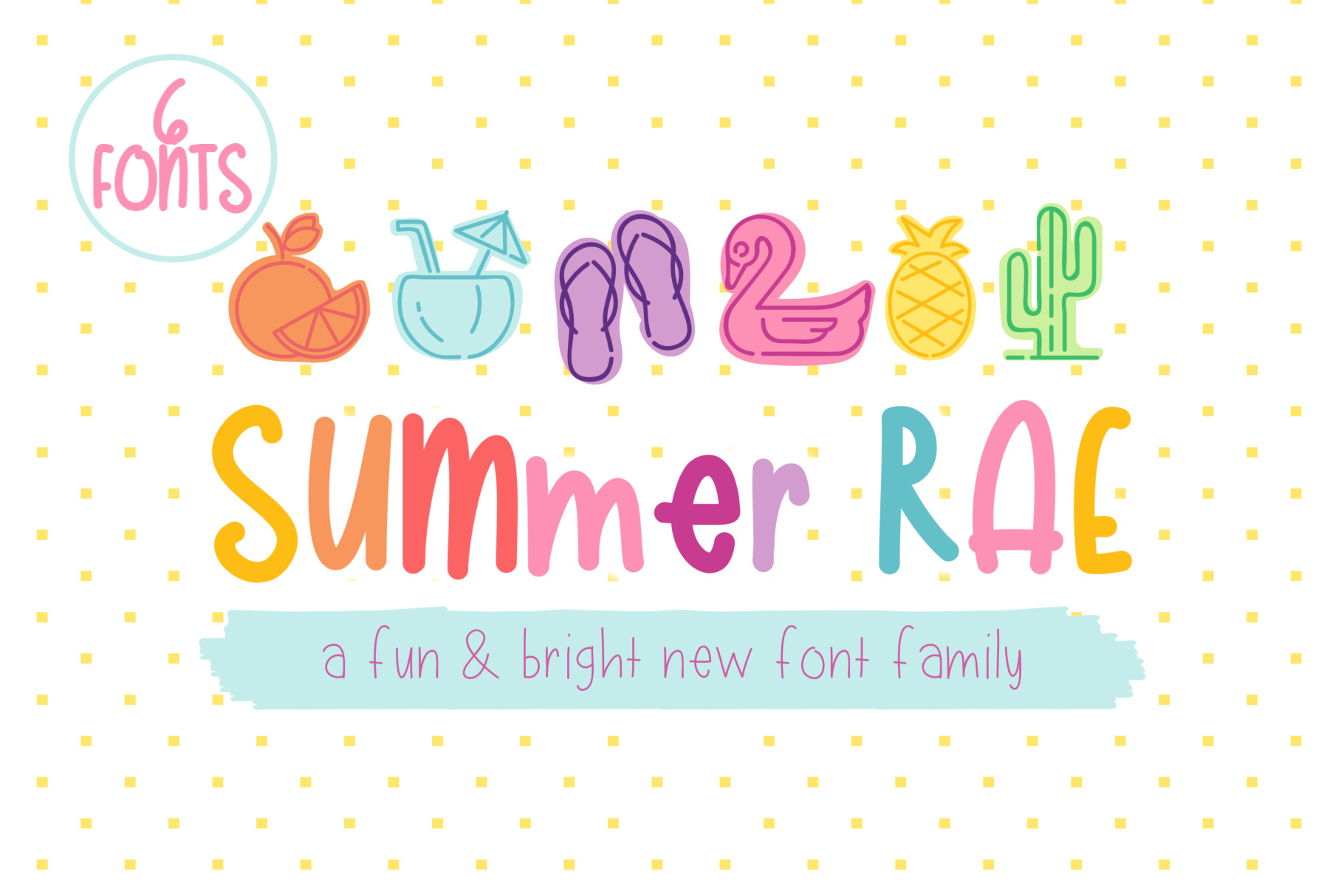
Summer Rae | Font Family of 6
Fun Family of 6! Create all the cuteness with this wide variety of hand written fonts.
Fonts include: Summer Rae Thin Summer Rae Medium Summer Rae Bold Summer Rae Balloon (extra bold) Summer Rae Lined Summer Rae Dots